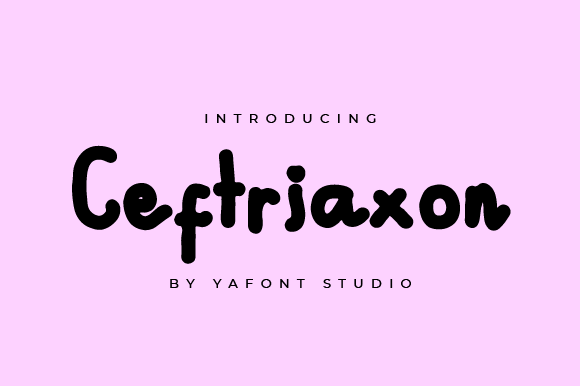
Ceftriaxon Font: A Simple yet Unique Handwritten Font for Your Designs
Are you tired of using the same old fonts in your designs? Look no further than Ceftriaxon, a simple and casual handwritten font that’s perfect for adding a personal touch to your projects. In this article, we’ll take a closer look at the Ceftriaxon font, its features, and how you can use it to elevate your designs.
What is Ceftriaxon Font?
Ceftriaxon is a modern handwritten font that’s designed to be both simple and unique. Its natural and effortless style makes it incredibly fitting for a wide range of designs, from branding and advertising to packaging and digital media. Whether you’re a designer, craftsperson, or DIY enthusiast, Ceftriaxon is a versatile font that can help you add a personal touch to your projects.
Key Features of Ceftriaxon Font
So, what makes Ceftriaxon font so special? Here are some of its key features:
- Handwritten style: Ceftriaxon has a natural, handwritten style that’s perfect for adding a personal touch to your designs.
- Simple and casual: Unlike some fonts that can be overly ornate or complicated, Ceftriaxon is simple and casual, making it easy to read and use.
- Unique style: Ceftriaxon’s unique style sets it apart from other fonts, making it perfect for designers who want to stand out from the crowd.
- Versatile: Ceftriaxon can be used for a wide range of designs, from branding and advertising to packaging and digital media.
How to Use Ceftriaxon Font in Your Designs
Now that we’ve covered the features of Ceftriaxon font, let’s talk about how you can use it in your designs. Here are some ideas to get you started:
- Branding and advertising: Use Ceftriaxon to create eye-catching logos, ads, and marketing materials that stand out from the crowd.
- Packaging design: Add a personal touch to your product packaging with Ceftriaxon, making it more appealing to customers.
- Digital media: Use Ceftriaxon in your digital media, such as social media graphics, blog posts, and email newsletters.
- Crafting and DIY projects: Ceftriaxon is perfect for crafters and DIY enthusiasts who want to add a personal touch to their projects, such as handmade cards, gift tags, and more.
Tips for Using Ceftriaxon Font Effectively
Here are some tips for using Ceftriaxon font effectively in your designs:
- Use it sparingly: While Ceftriaxon is a beautiful font, it’s best to use it sparingly to avoid overwhelming your design.
- Pair it with other fonts: Experiment with pairing Ceftriaxon with other fonts to create a unique and visually appealing design.
- Adjust the size and color: Play around with different sizes and colors to find the perfect combination for your design.
| Font Name | Ceftriaxon Font |
| Author | Ciriative |
In conclusion, Ceftriaxon font is a simple yet unique handwritten font that’s perfect for designers, crafters, and DIY enthusiasts. Its natural and effortless style makes it incredibly fitting for a wide range of designs, from branding and advertising to packaging and digital media. With its versatility and ease of use, Ceftriaxon is a great addition to any design toolkit.
Overall, Ceftriaxon font is a great choice for anyone looking to add a personal touch to their designs. Its simplicity, uniqueness, and versatility make it a valuable addition to any design toolkit.